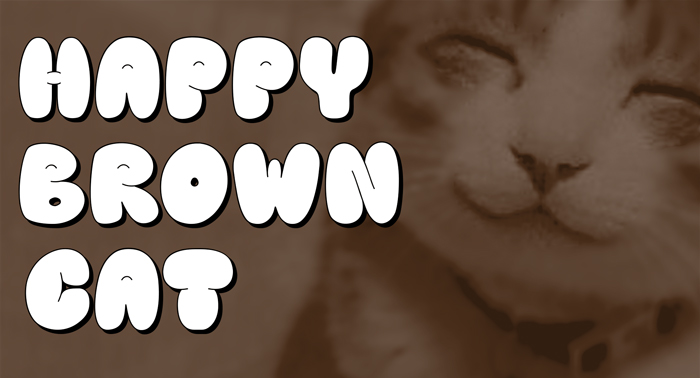
Happy Cat Font Free Download For Web Click here and download the happy cat font · window, mac, linux · last updated 2026 · commercial licence included. Font happy cat — description, free download, supported languages and symbols, type of license, installation on a website and @font face css. Download happy cat font. happy cat by playful, bold, and bubbly font with rounded characters. a playful and bold font with rounded, bubbly characters. the strokes are thick and consistent, giving it a cartoonish and friendly appearance. great for children's books, playful branding, and fun posters. headlines, logos balanced. Discover playful and whimsical 'free happy cat fonts' that add charm and personality to any project, perfect for cat lovers and creative enthusiasts alike.
Download Happy Brown Cat Font Dafonttop Download happy cat font. happy cat by playful, bold, and bubbly font with rounded characters. a playful and bold font with rounded, bubbly characters. the strokes are thick and consistent, giving it a cartoonish and friendly appearance. great for children's books, playful branding, and fun posters. headlines, logos balanced. Discover playful and whimsical 'free happy cat fonts' that add charm and personality to any project, perfect for cat lovers and creative enthusiasts alike. Download the happy cat font together with @font face css styles for websites and graphic editors (photoshop, figma, sketch, adobe indesign). Download happy cat mandala monogram font for pc mac for free, take a test drive and see the entire character set. moreover, you can embed it to your website with @font face support. Making the web more beautiful, fast, and open through great typography. Download 150,000 free fonts for windows and mac. browse categories such as blackletter, calligraphy, handwriting, script, sans serif. new fonts added daily.